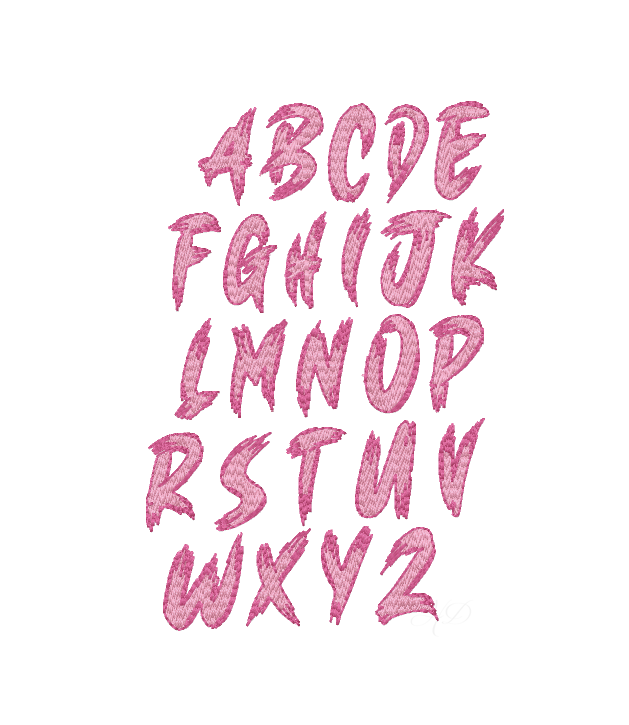
Paint Brush Fill Shadow Embroidery Font for Crafting
Elevate your crafting with the Paint Brush Fill Shadow Embroidery Font, a unique two-color type font featuring embroidery fill stitches that create stunning shadow effects. Perfect for Crafters and DIY enthusiasts, this font includes uppercase letters A-Z with 26 characters provided in multiple sizes: 1.5", 2", 2.5", 3", and 3.5".